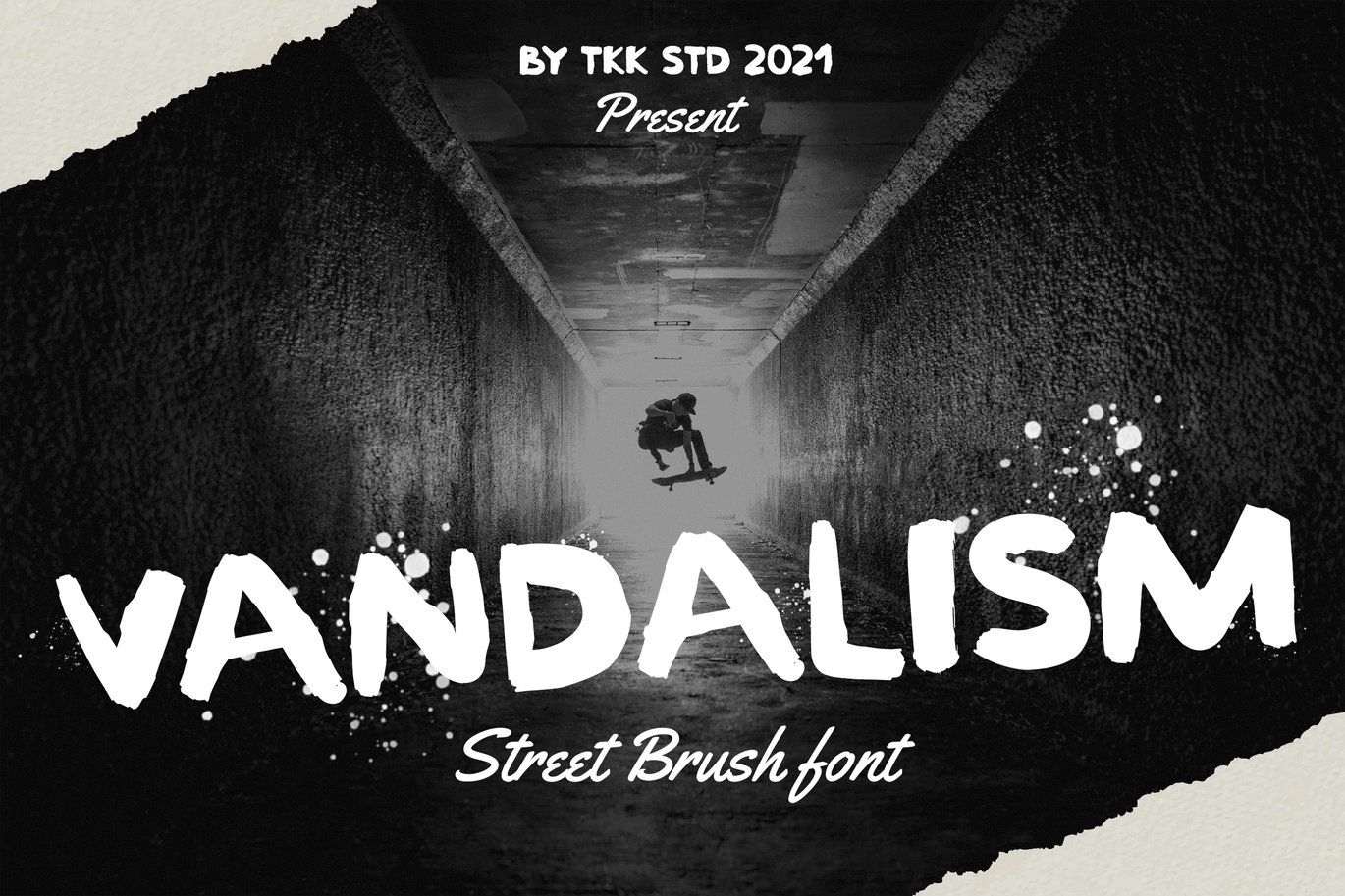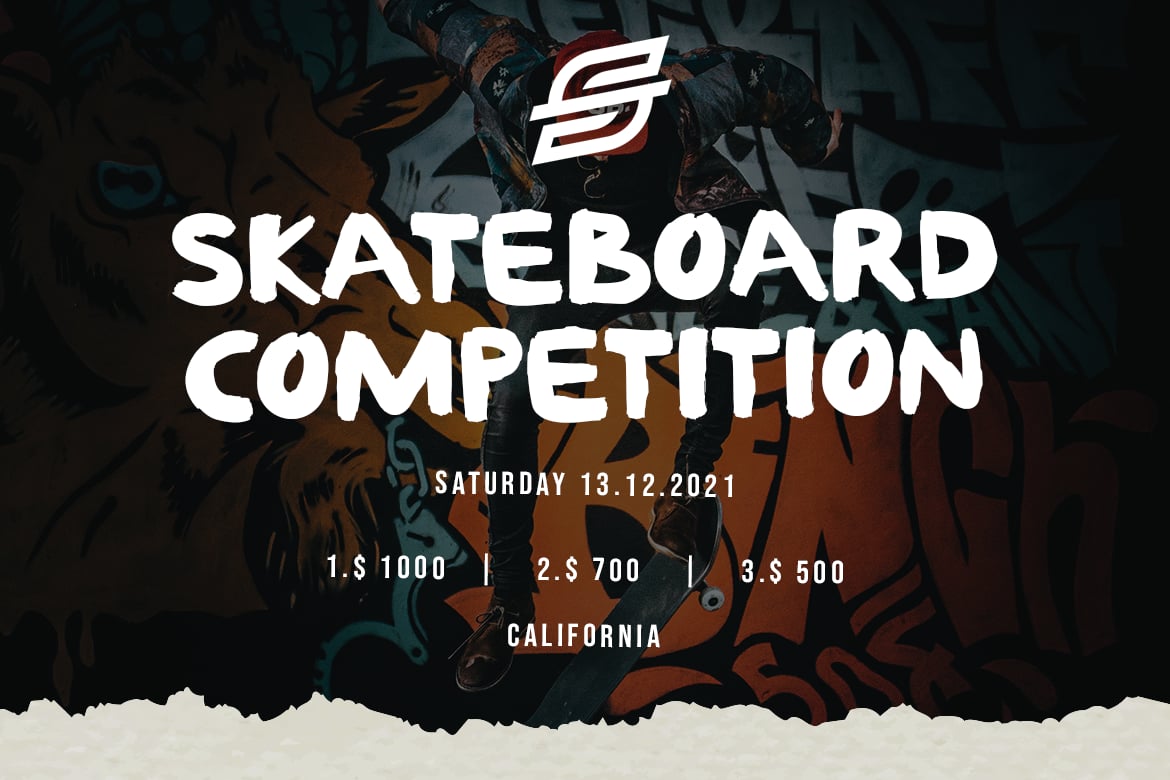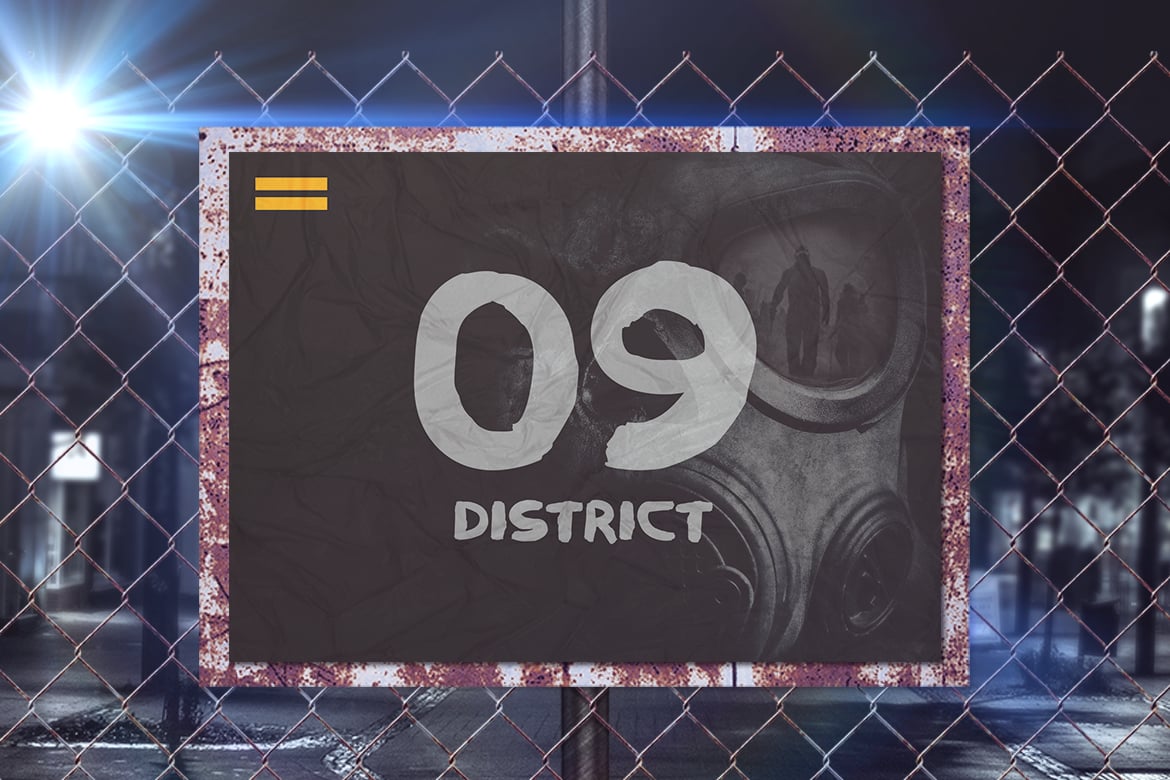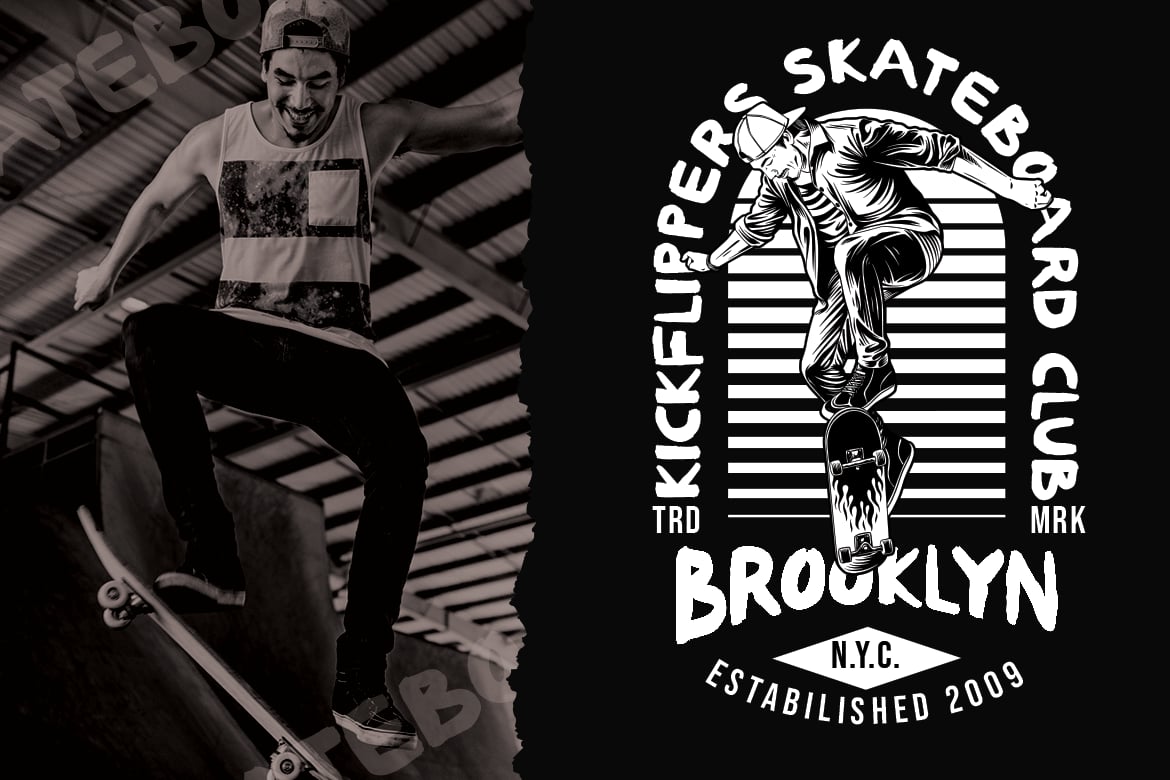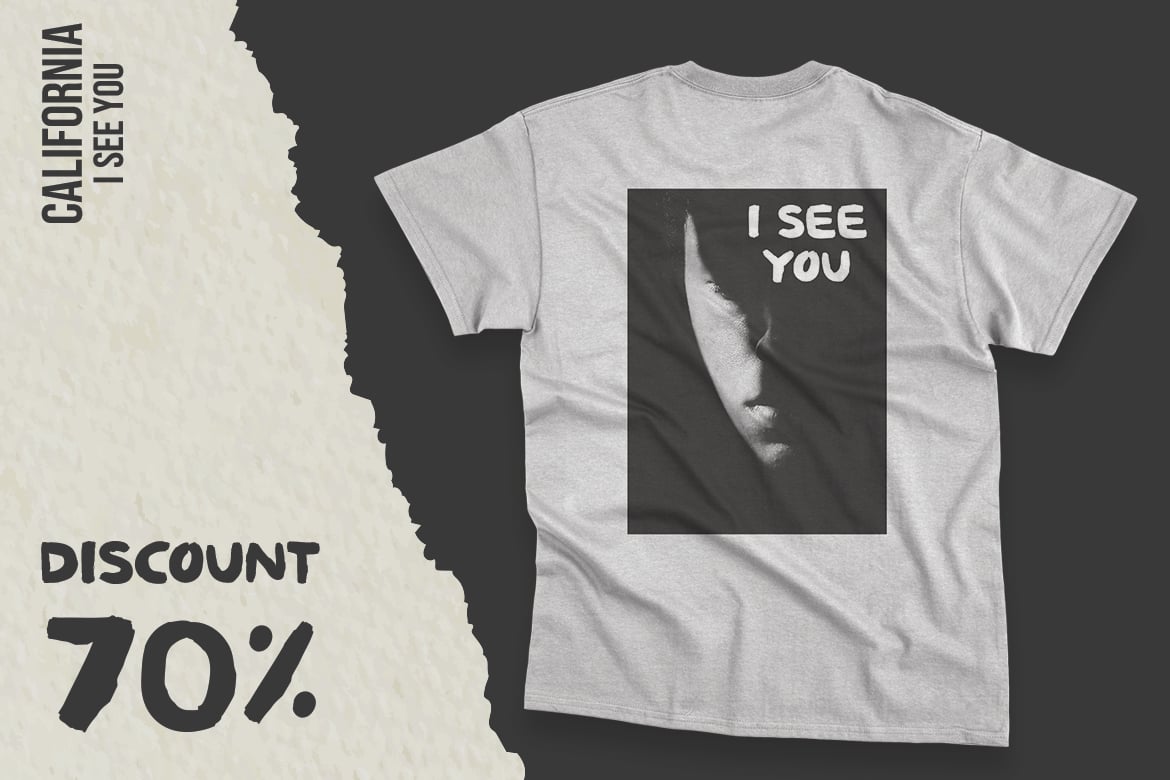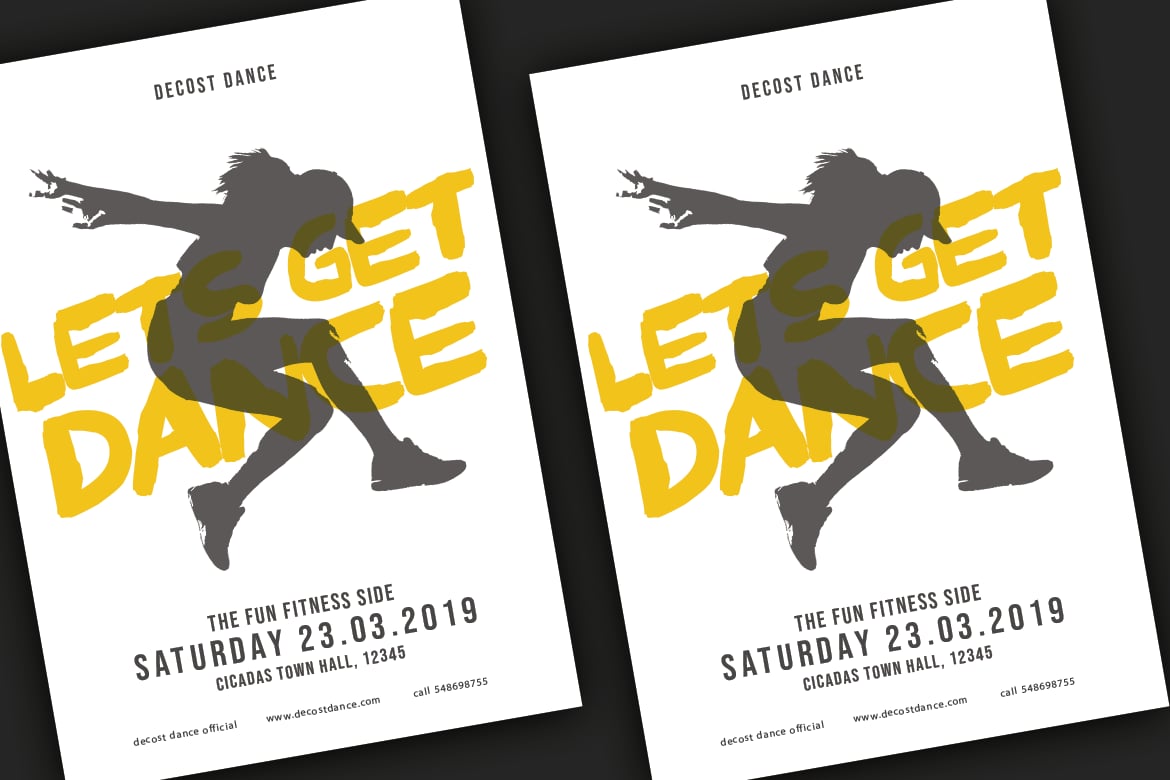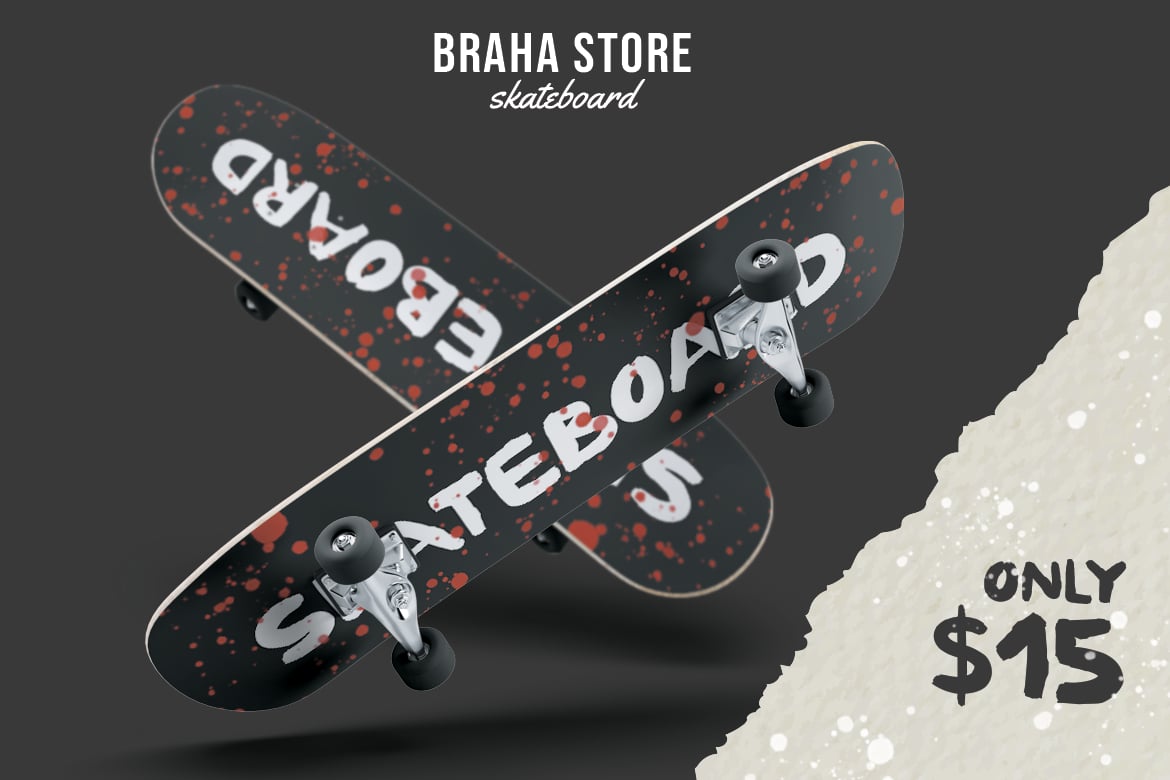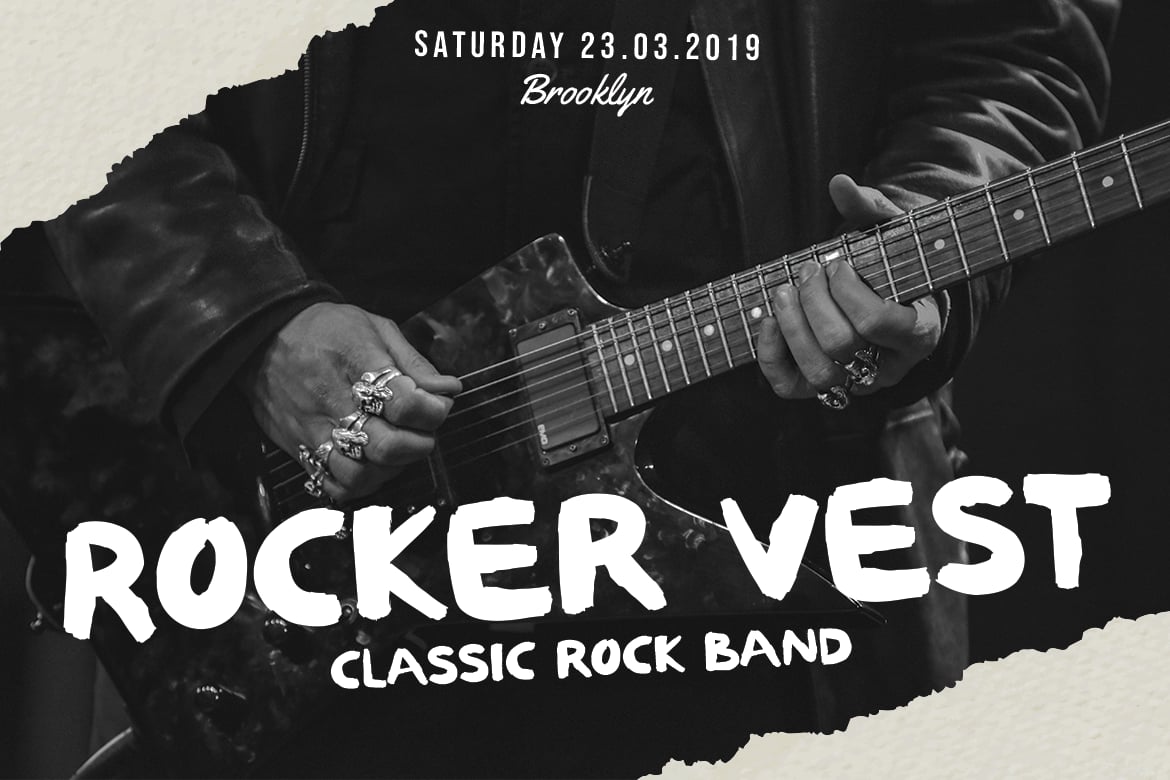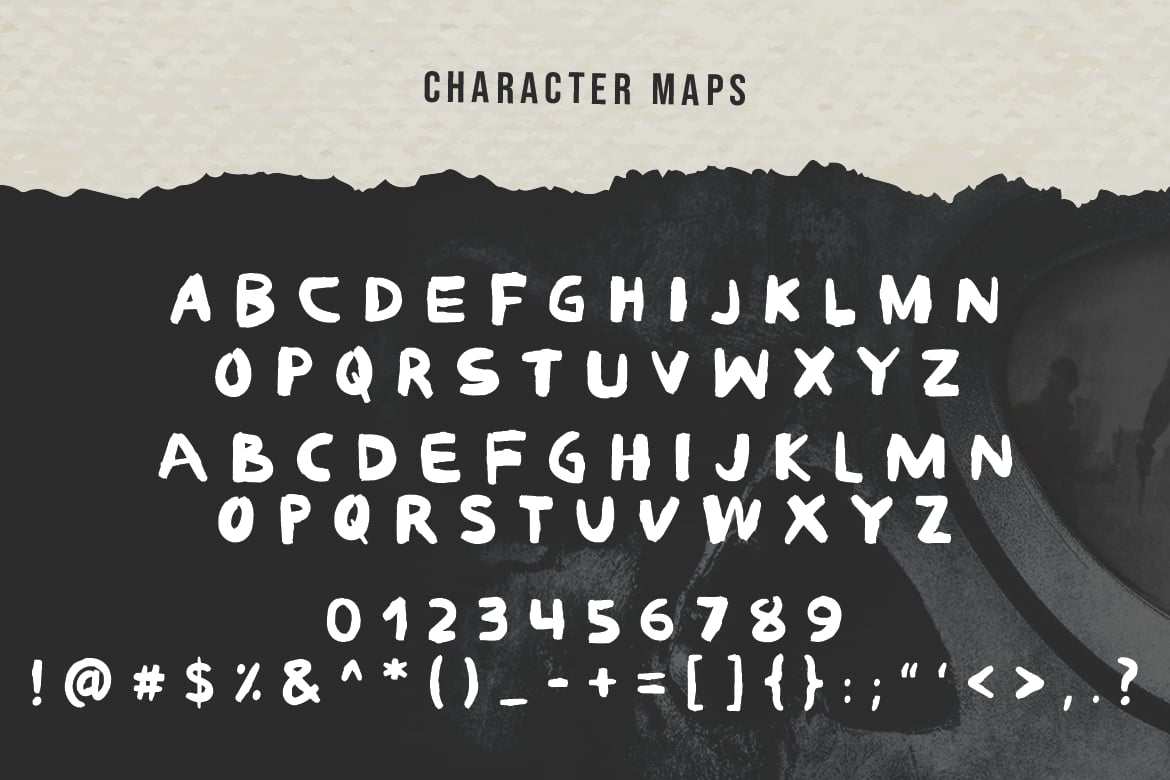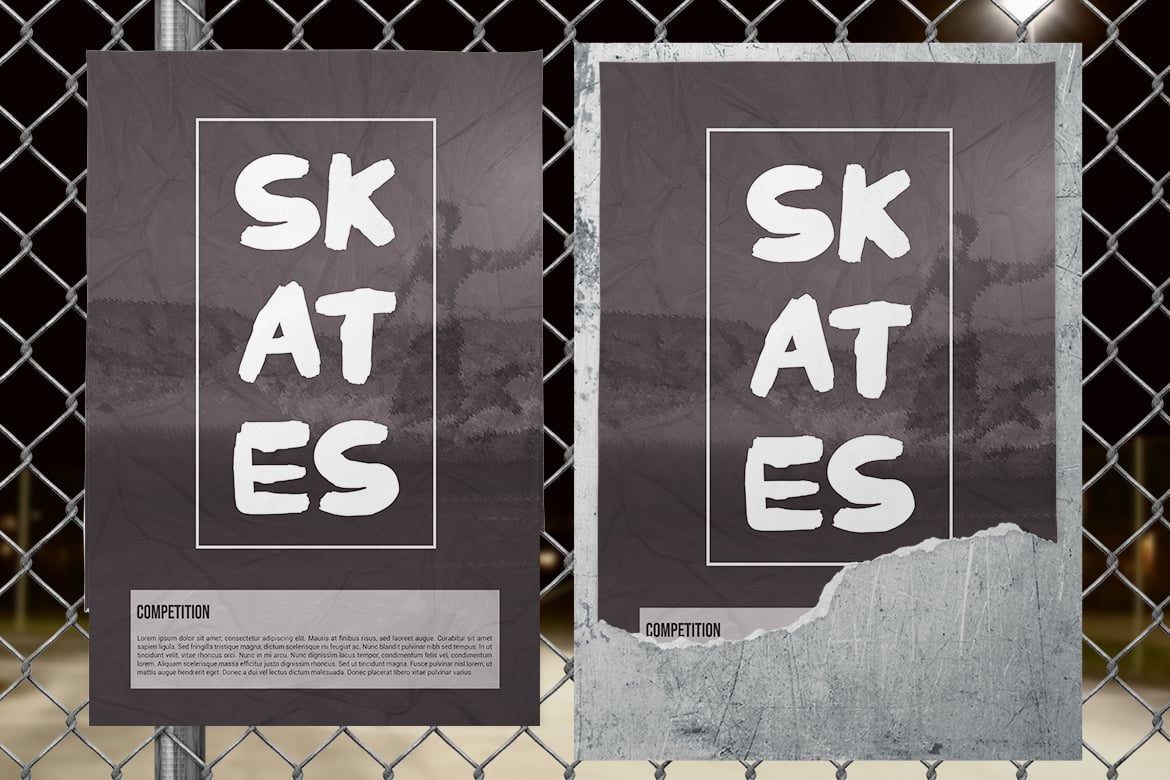
Street Brush font – Vandalism
VANDALISM – A Raw, Street-Style Typeface for Bold Statements
VANDALISM is a gritty, rebellious display font inspired by street culture, graffiti tags, and the raw energy of urban life. With its rough brush strokes and hand-painted aesthetic, this font captures the essence of self-expression, underground scenes, and the fearless attitude of skaters, rockers, and streetwear brands.
Perfect for skateboard competitions, streetwear branding, punk rock album covers, and urban event posters, VANDALISM delivers an unapologetic edge that makes a statement. Whether you’re crafting merch designs, graffiti-inspired ads, or alternative music visuals, this font ensures your message is loud, raw, and impossible to ignore.
Why Choose VANDALISM?
- Rough, Graffiti-Style Lettering – A hand-drawn brush look that feels rebellious and authentic.
- Perfect for Street Culture & Alternative Branding – Designed for skate brands, punk music, and underground events.
- Raw & High-Impact – Grabs attention with a bold, untamed aesthetic.
- Versatile for Urban-Themed Designs – Works for posters, stickers, apparel, and social media.
- Unapologetically Bold – Brings an attitude of defiance and individuality.
Break the rules and own the streets with VANDALISM – the ultimate font for rebels